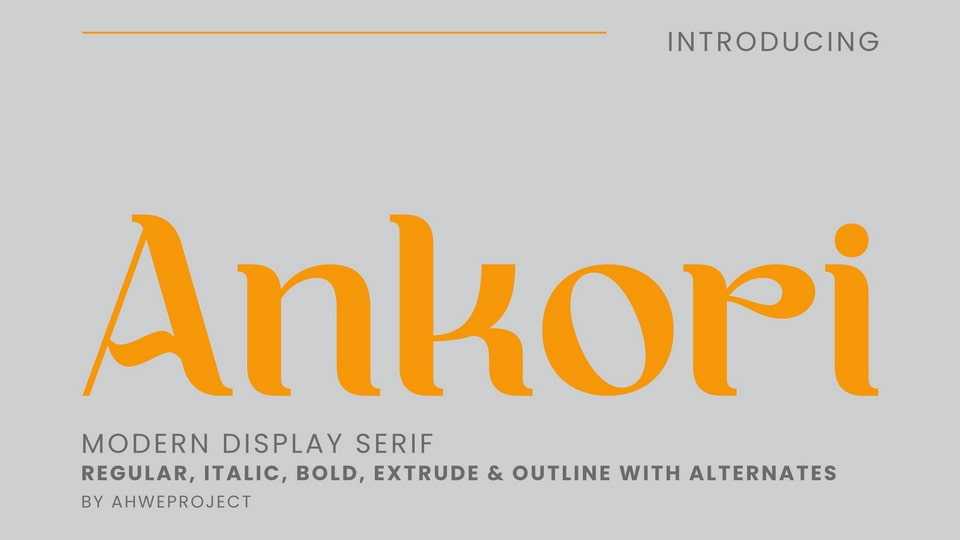
Download Ankori font, a modern serif typeface with a unique style, a light and high contrast font perfect for feminine logo signs, fashion heads & editorial designs.